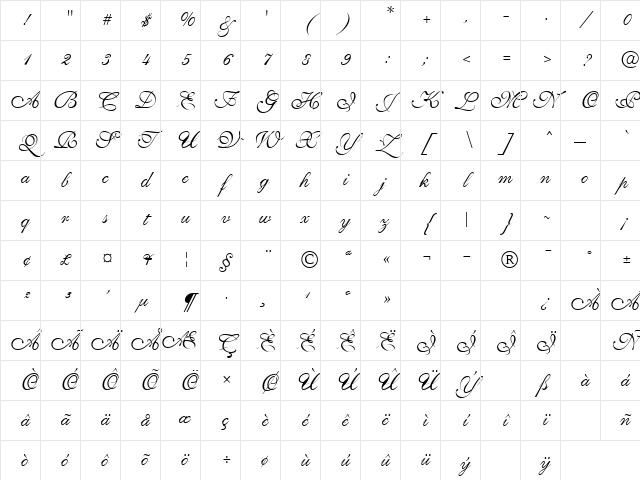
Complete SaffronToo Normal glyph index. Displaying only characters natively supported by SaffronToo Normal font.
SaffronToo is a composed and adaptable typeface that performs quietly and consistently across a wide range of design contexts.